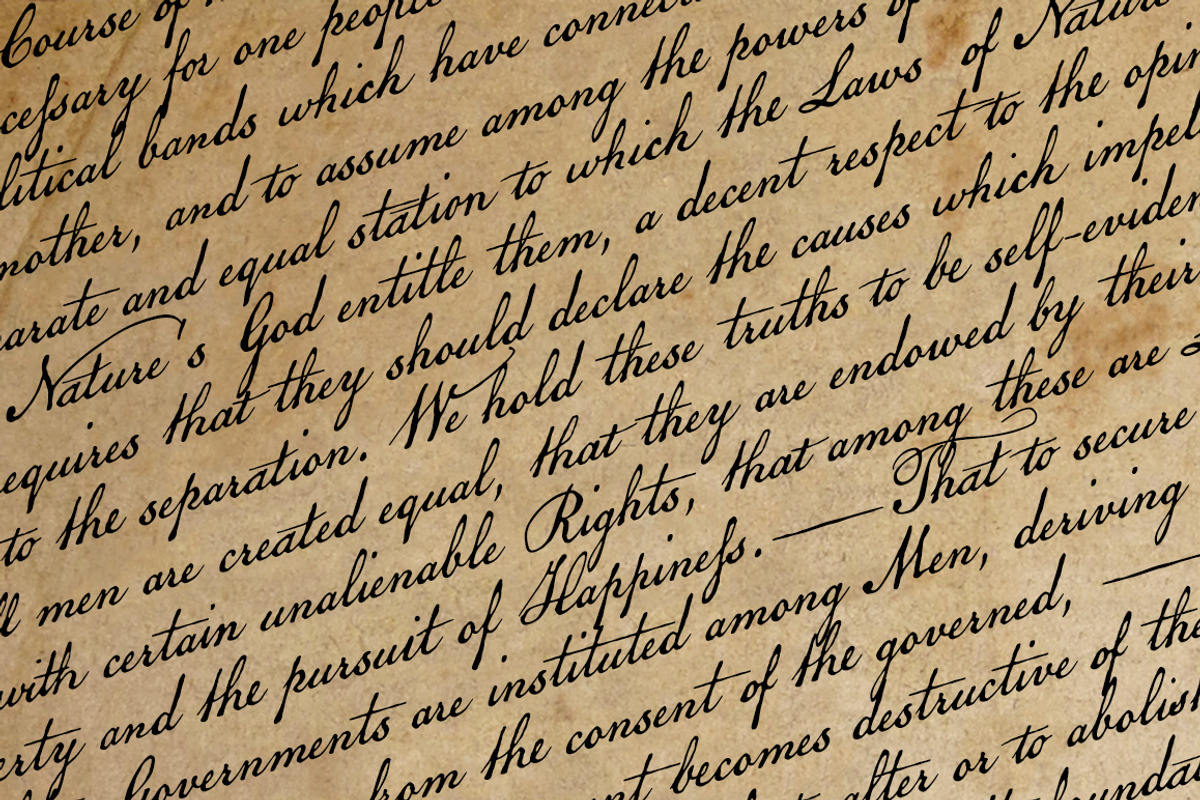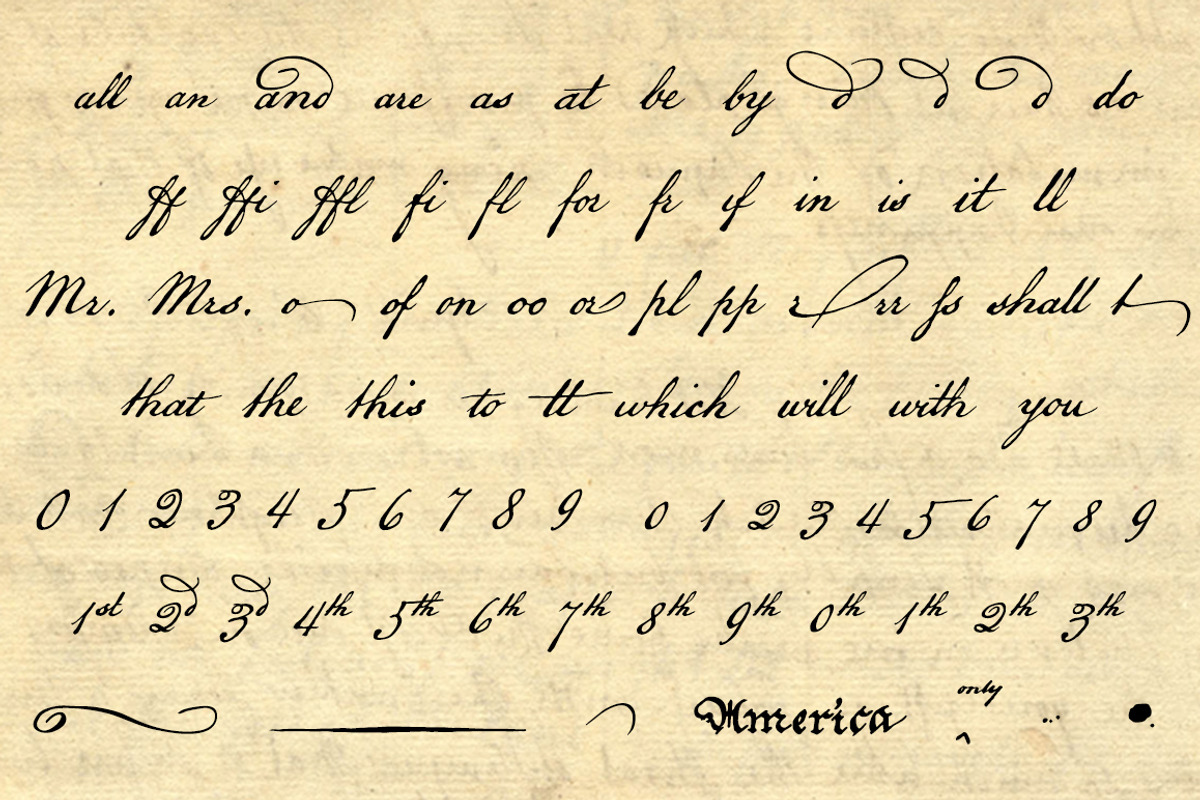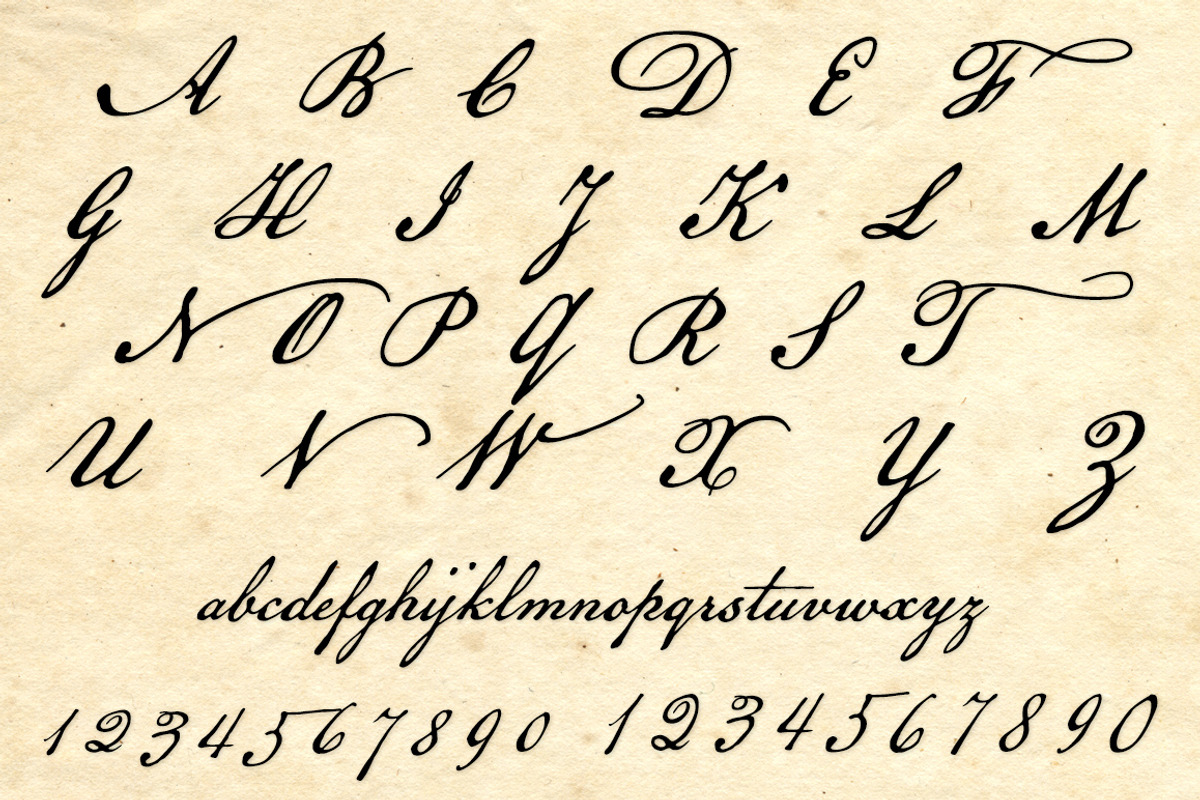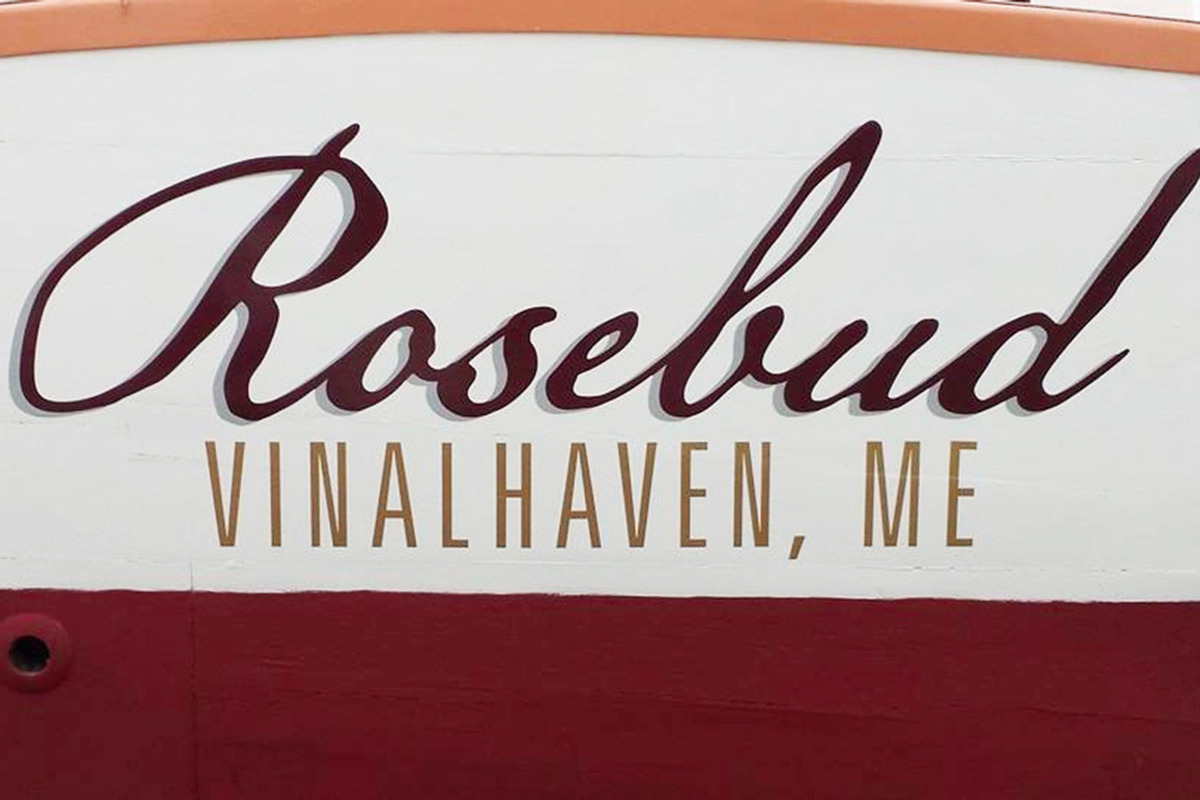
American Scribe, a Fourth of July font
American Scribe, a Fourth of July font by Three Islands Press is a font selected for branding, posters, packaging, typography.
- American Scribe comes with many discretionary ligatures, contextual alternates, both lining and old-style figures, and complete Central/East
Why American Scribe, a Fourth of July font is worth a look
American Scribe, a Fourth of July font by Three Islands Press fits naturally into Branding, posters, packaging, typography.